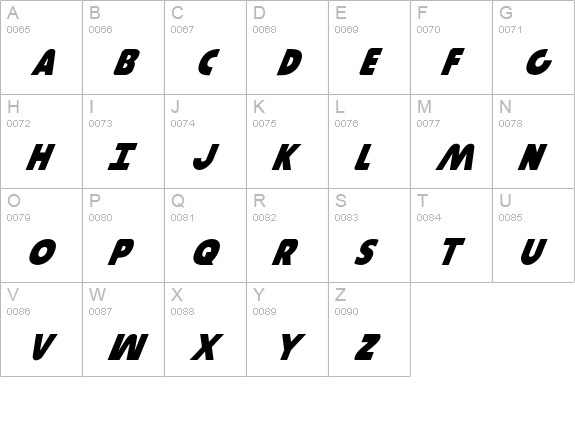
Governor Italic is a distinctive, italic variant in the Governor typeface family \xE2\x80\x94 well suited to design and typography projects.
Governor Italic font is a sleek and modern typeface that exudes elegance and sophistication. With its stylish slanted design, this font is perfect for adding a touch of class to any project. The Governor Italic font is not only visually appealing but also highly versatile, making it suitable for a wide range of applications. Best of all, Governor Italic font is completely free to download at FontsMarket.com. Whether you're working on a professional design project or simply want to enhance your personal creations, this font is a fantastic choice. Don't miss out on the opportunity to elevate your designs with the Governor Italic font - download it today and unleash your creativity!